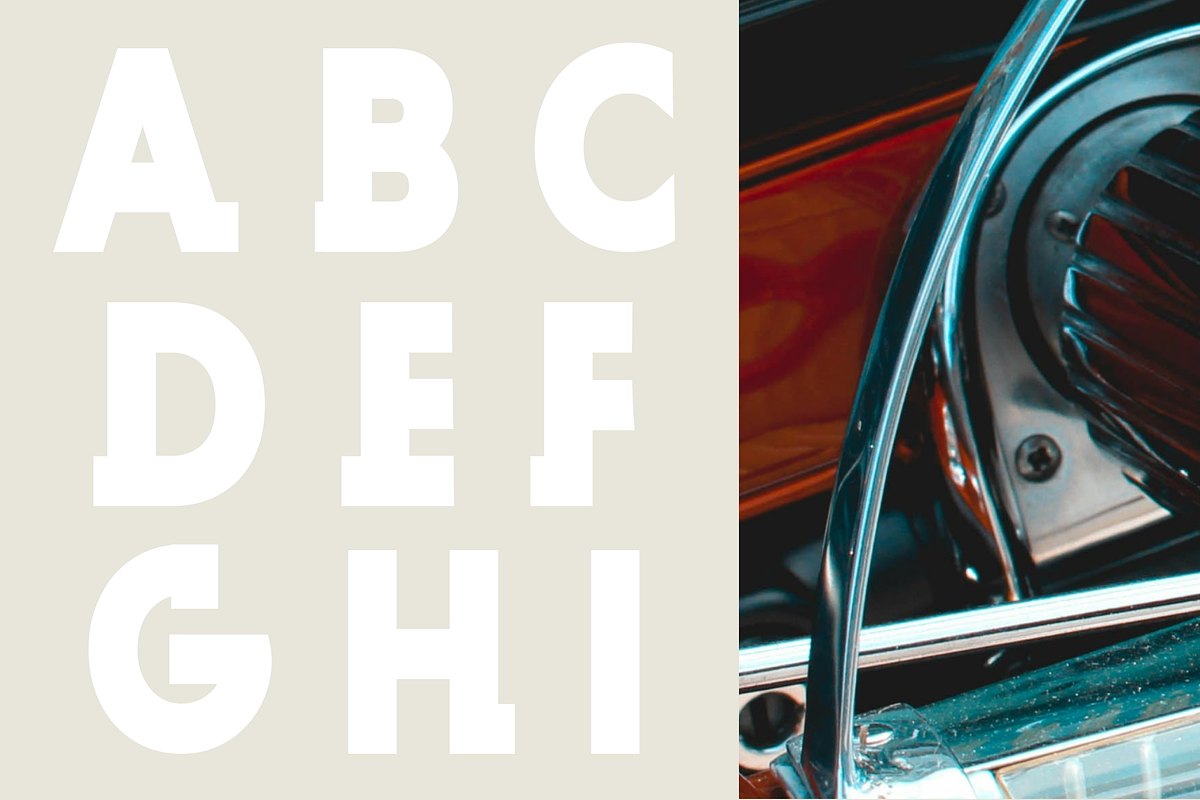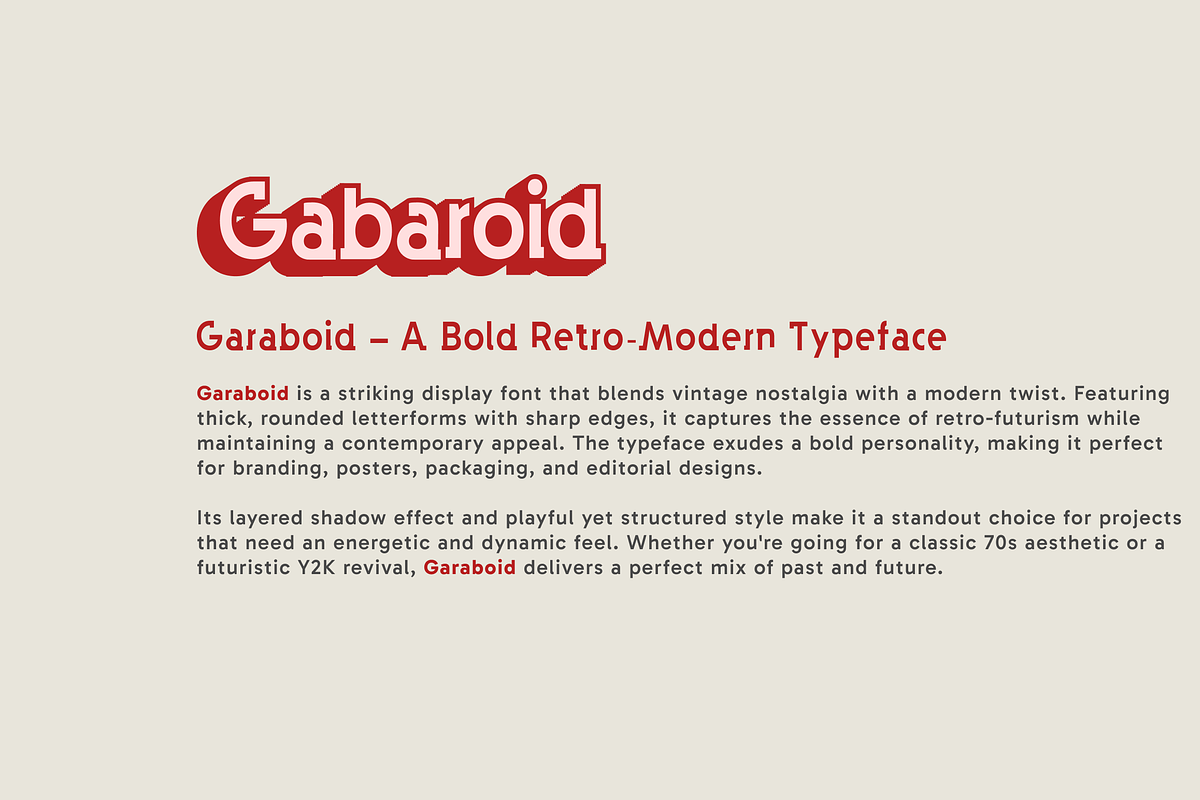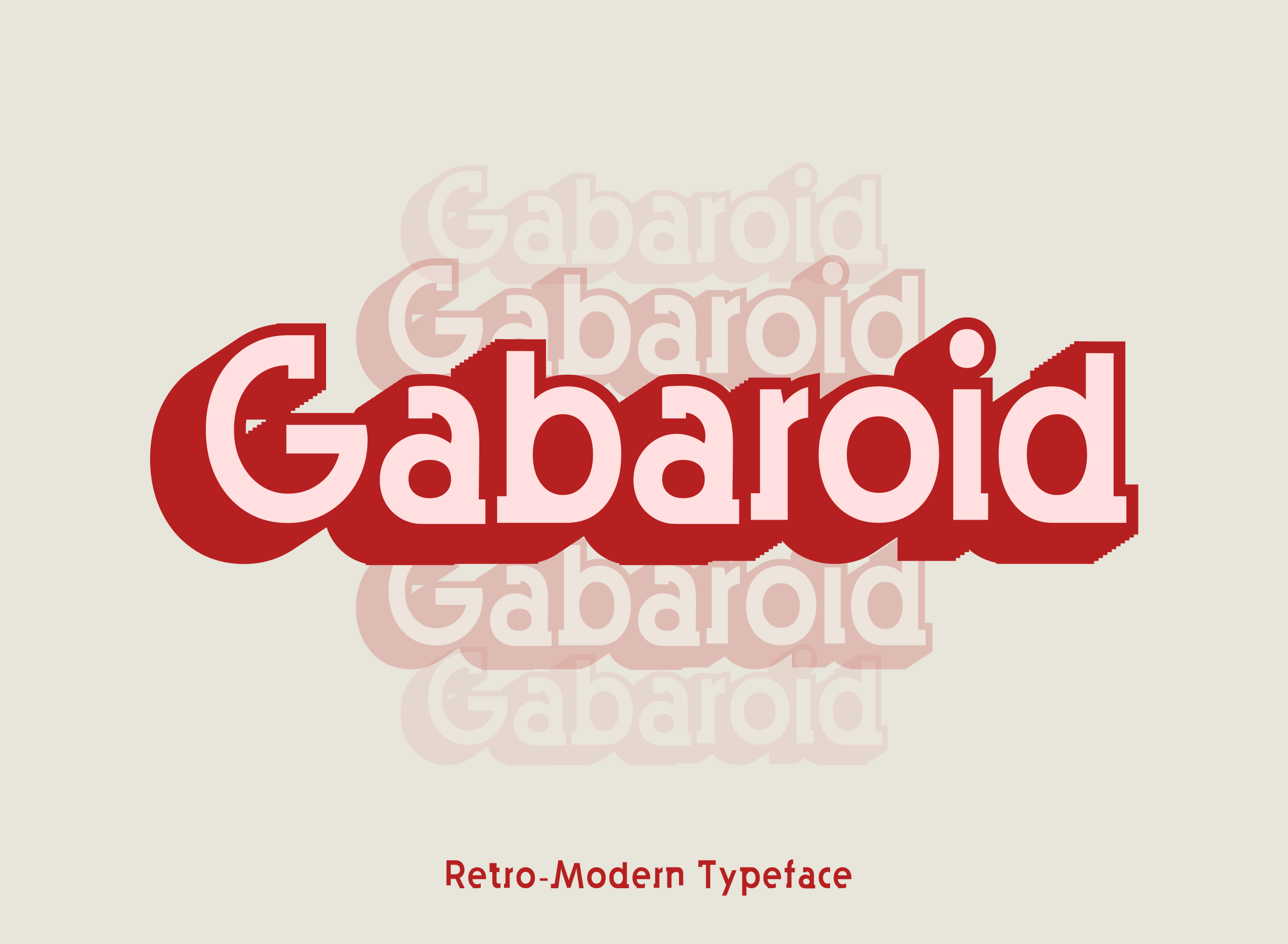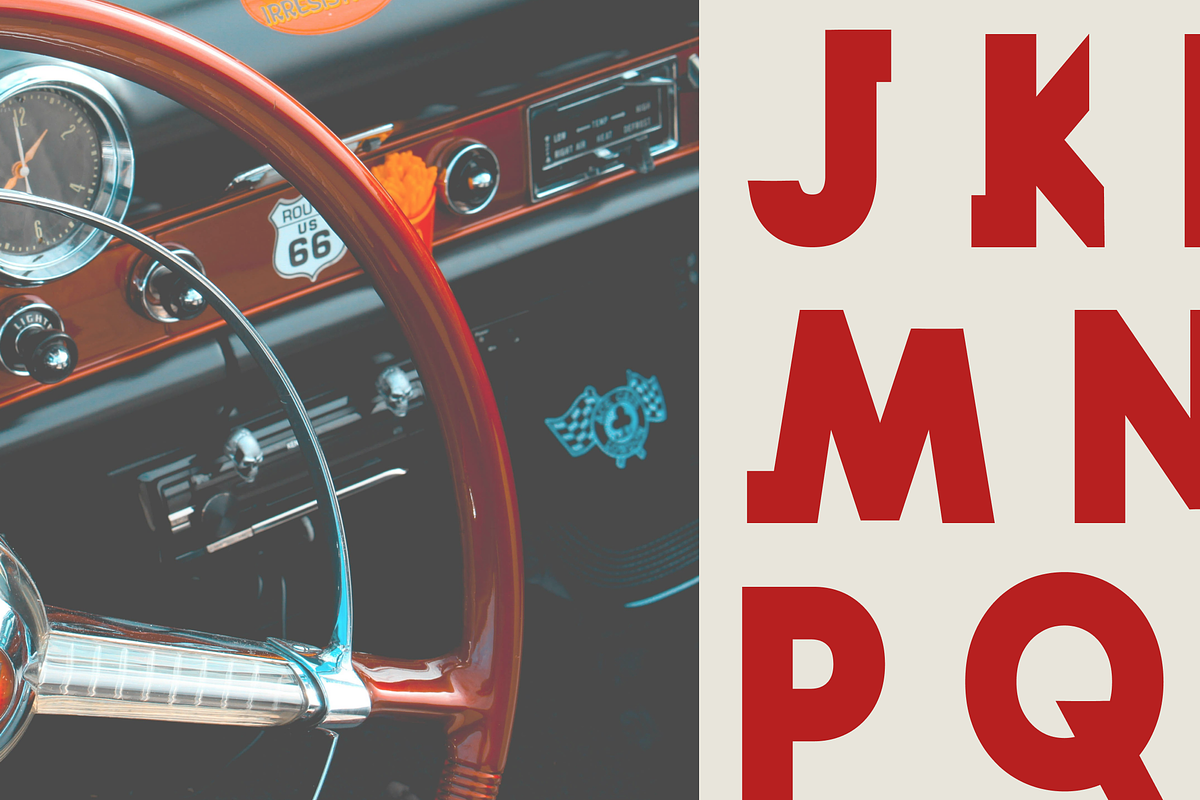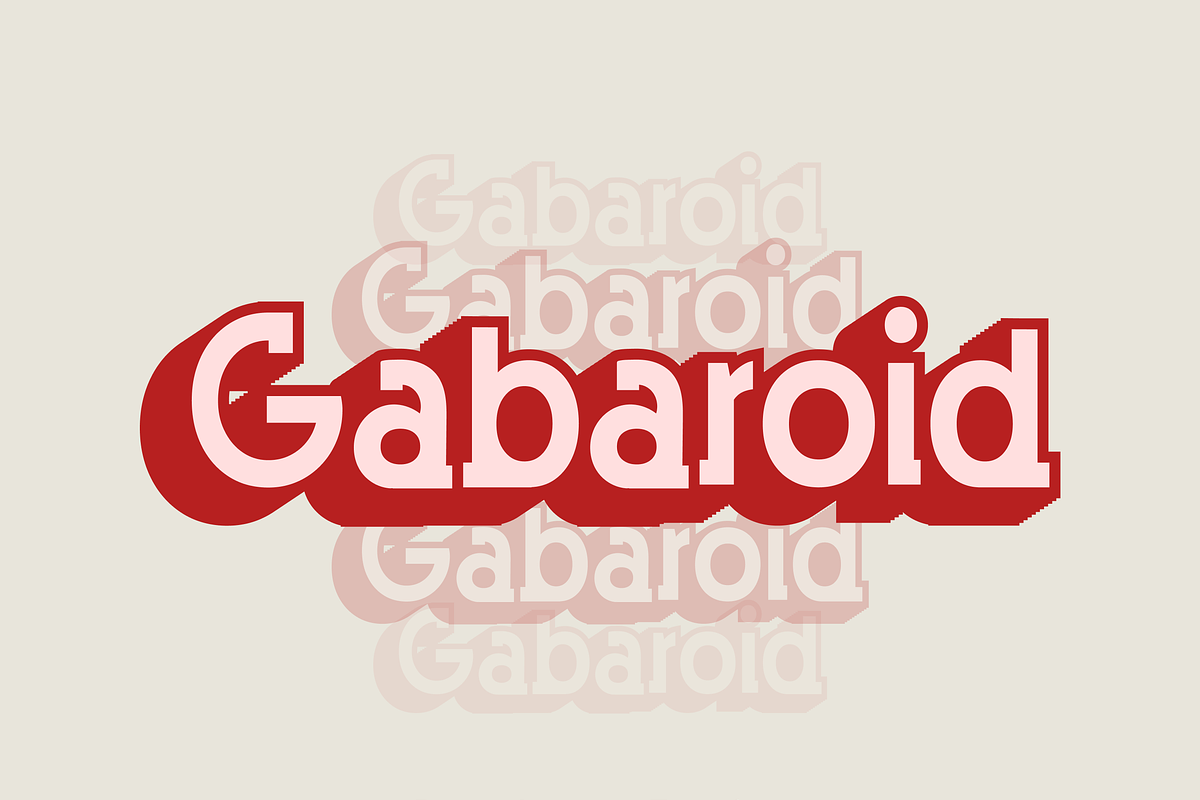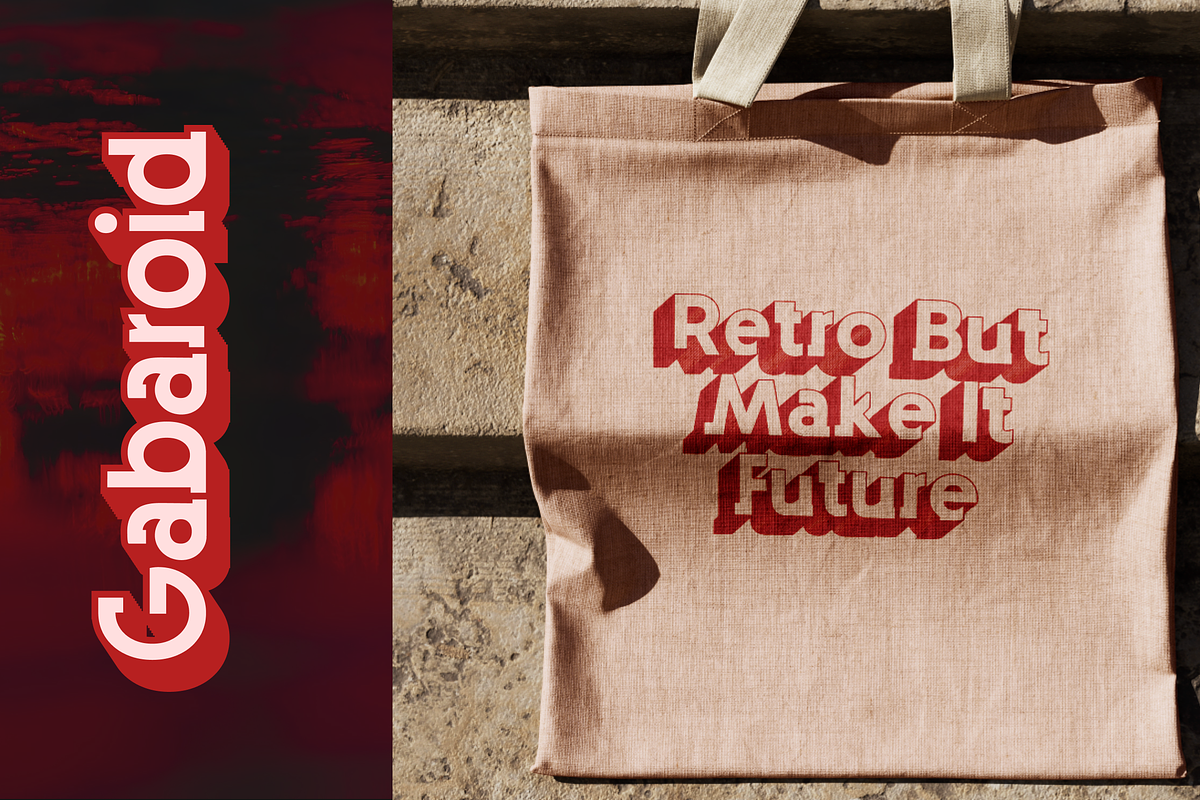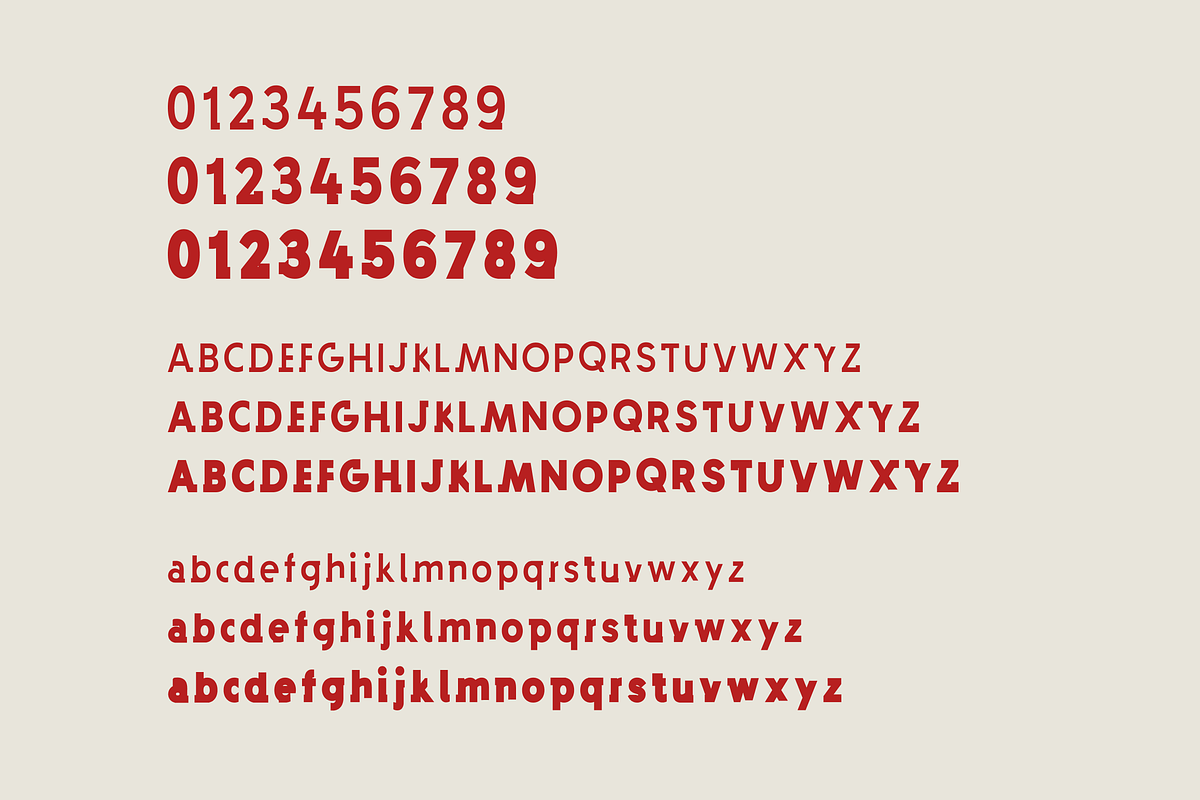
Gabaroid – Retro Display Font
Gabaroid is a bold and playful display font inspired by retro aesthetics with a modern edge. Featuring chunky, rounded letterforms and layered shadows, this typeface is perfect for branding, posters, merchandise, editorial designs, and more. Whether you're aiming for a nostalgic 70s vibe or a futuristic Y2K revival, Gabaroid brings energy and impact to your designs.
Uppercase and lowercase letters Perfect for headlines, packaging, and branding Give your projects a standout look with Gabaroid—retro, but make it future!